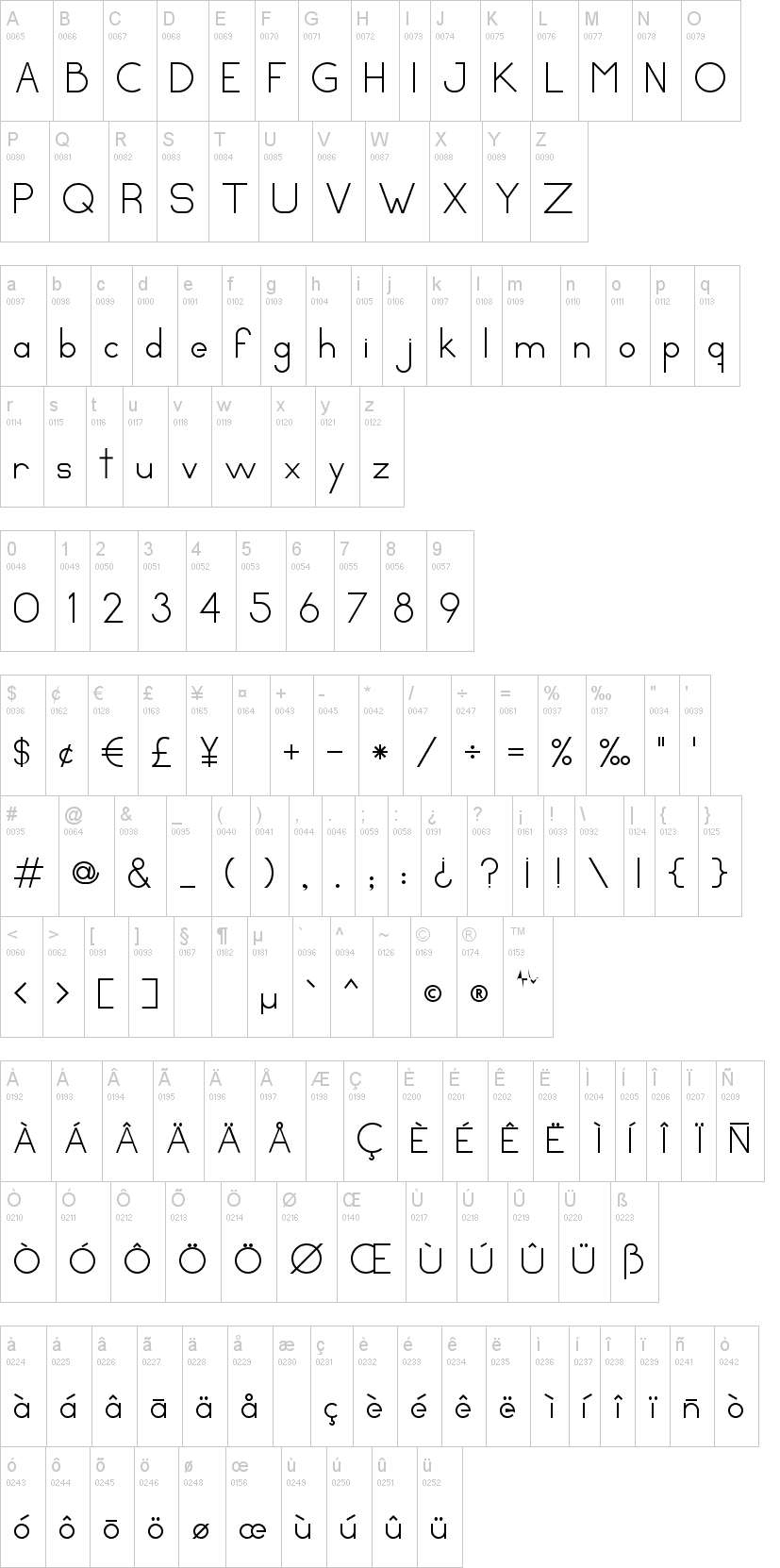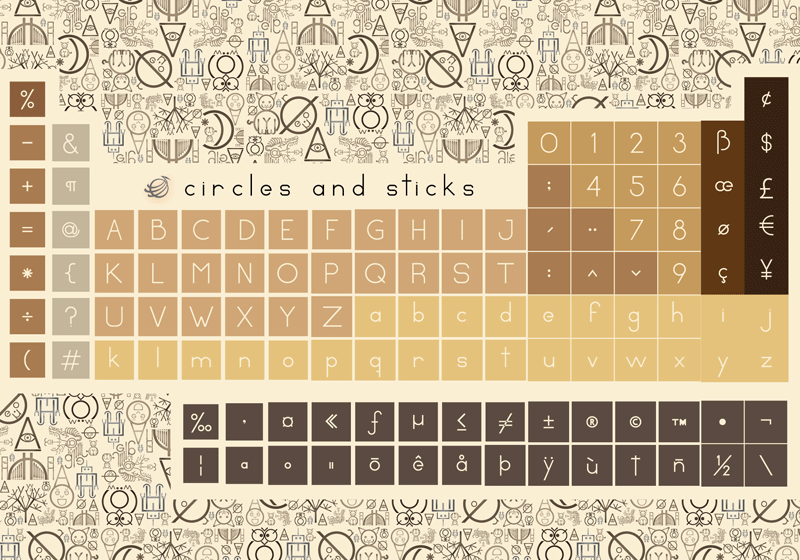
Шрифт Circles and sticks
Circles and sticks was the way i was taught to write, when i was a kid. I do not know how it is done nowadays. Made some examples illustrating figures you can do with the simple little font.